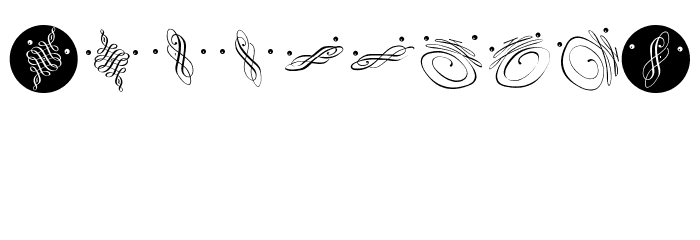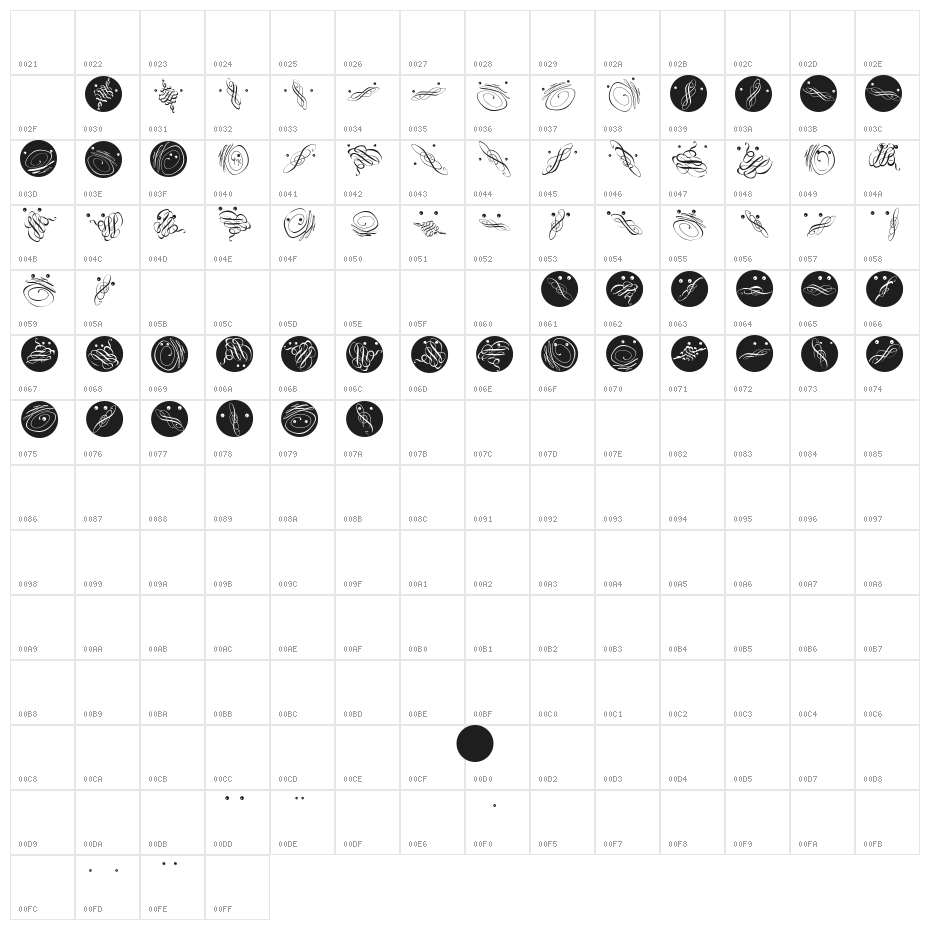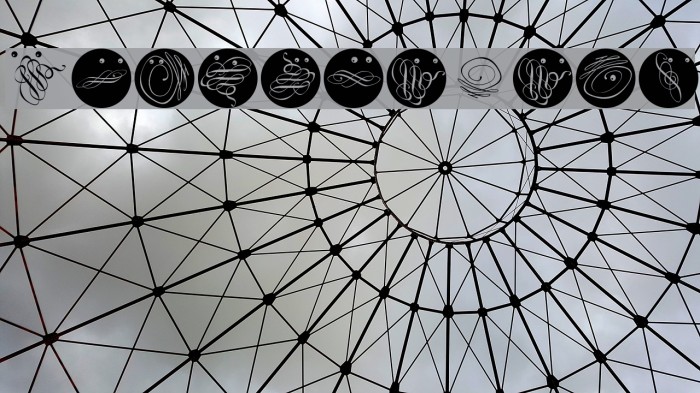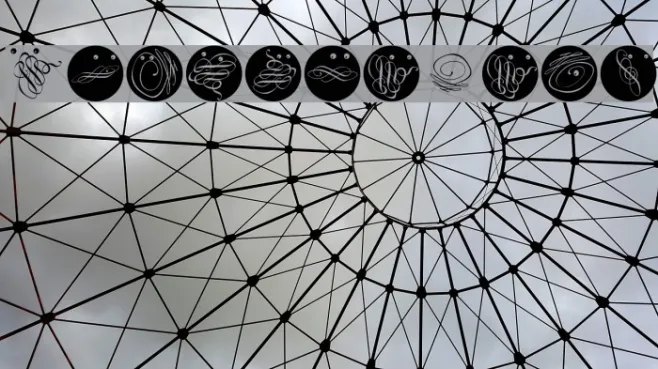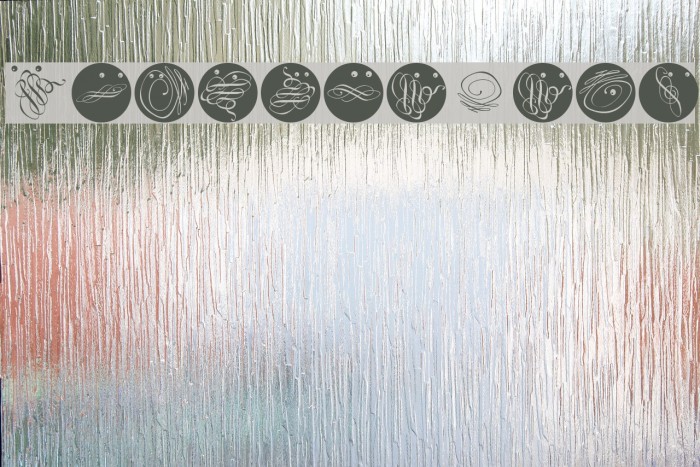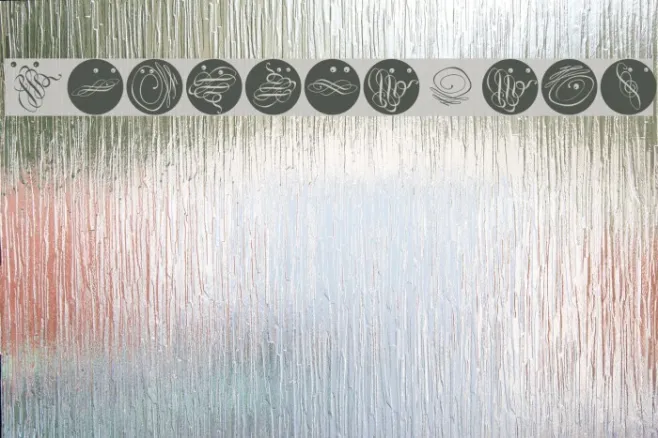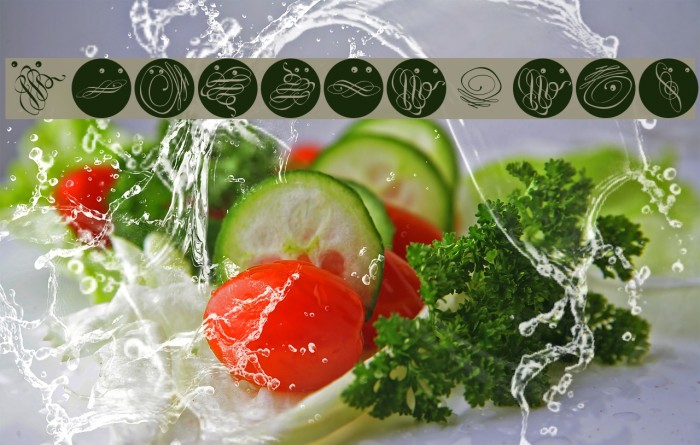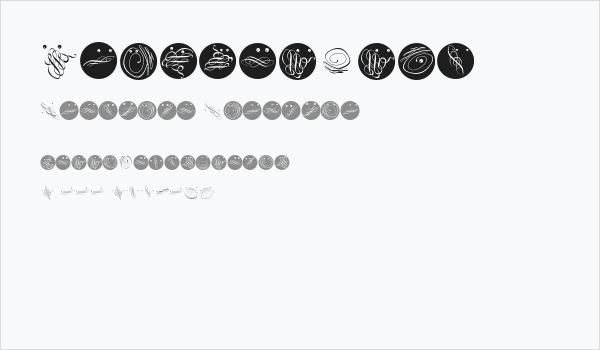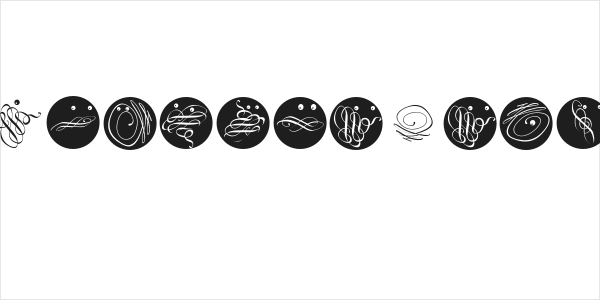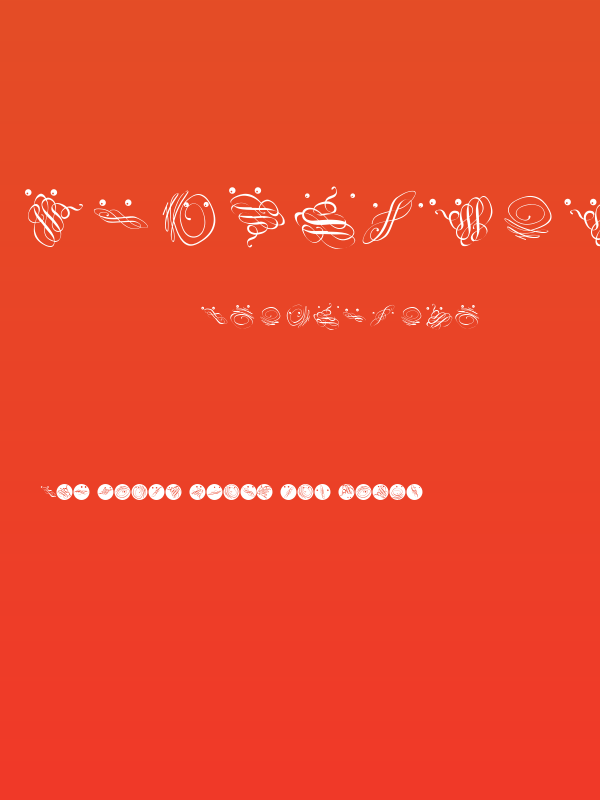
KringelPlus Font
KringelPlus Description
This font is an artistic and decorative typeface characterized by its intricate swirls and loops. Each character is uniquely designed with elaborate flourishes, making it more of an artistic expression than a traditional font. The letters are not easily distinguishable as typical alphabetic characters, as they are heavily stylized with ornate embellishments. This font is more suitable for decorative purposes rather than readability, as the focus is on visual appeal and artistic design. The characters are enclosed in circular backgrounds, adding to the decorative nature of the font.
| Use Case | Logos, Artistic designs, Decorative elements |
| Proposed Projects | Ideal for decorative projects, artistic designs, logos, and creative branding where visual impact is prioritized over readability. |